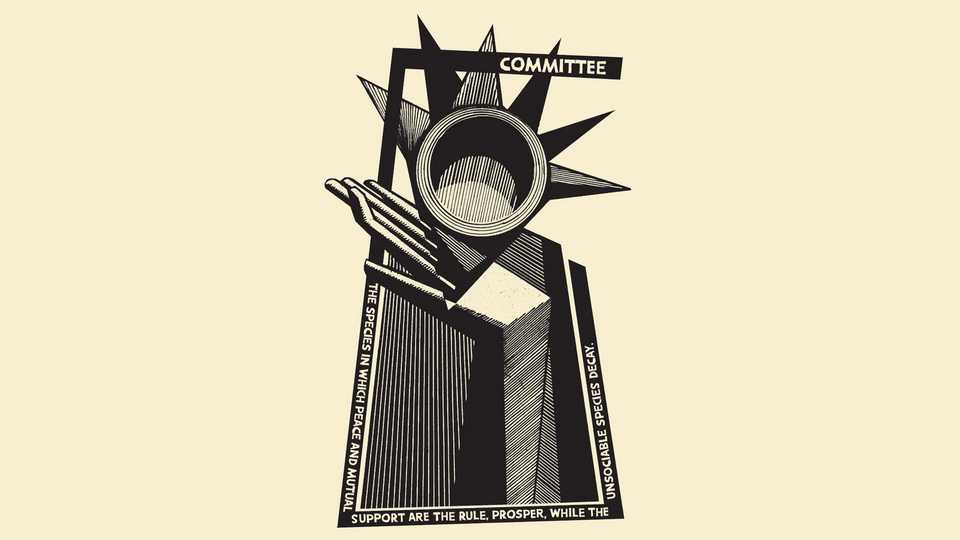
Download Committee font, a sans serif typeface based on the letterforms created when carving into lino and wood. Included is a rough version, as well as a bold and light versions, both of which retain their humanist forms.